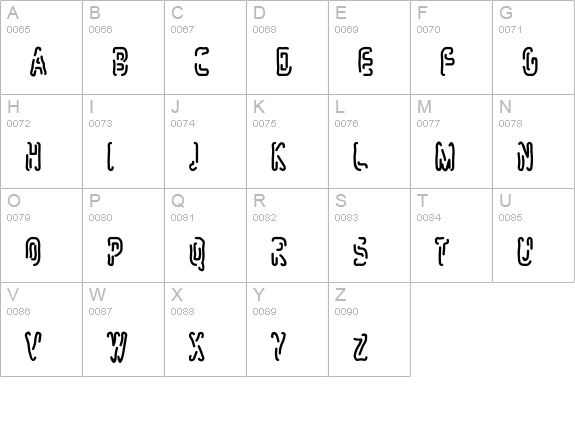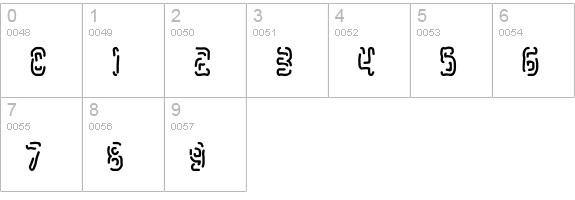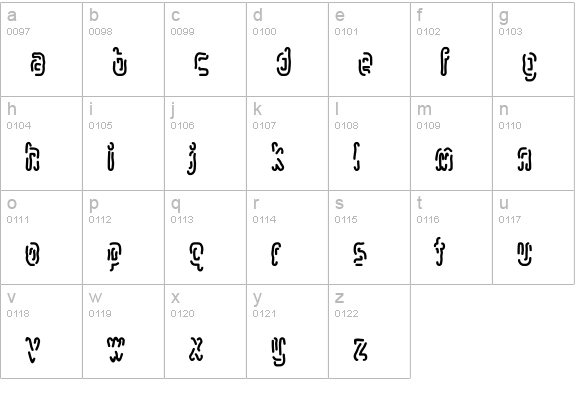
Mlurmlry Font Details
Mlurmlry font is a stunning display typeface that exudes elegance and sophistication. With its unique and intricate design, this font is perfect for adding a touch of class to your projects. The delicate curves and sharp angles of Mlurmlry create a visually captivating look that is sure to make a statement. The best part? Mlurmlry font is available for free download at FontsMarket.com. This means you can easily access this beautiful font and use it in your designs without any cost. Whether you're working on a branding project, a website design, or any other creative endeavor, Mlurmlry font is a fantastic choice that will elevate your work to the next level. Don't miss out on the opportunity to add Mlurmlry font to your font collection. Download it for free today and start creating stunning designs that will leave a lasting impression!